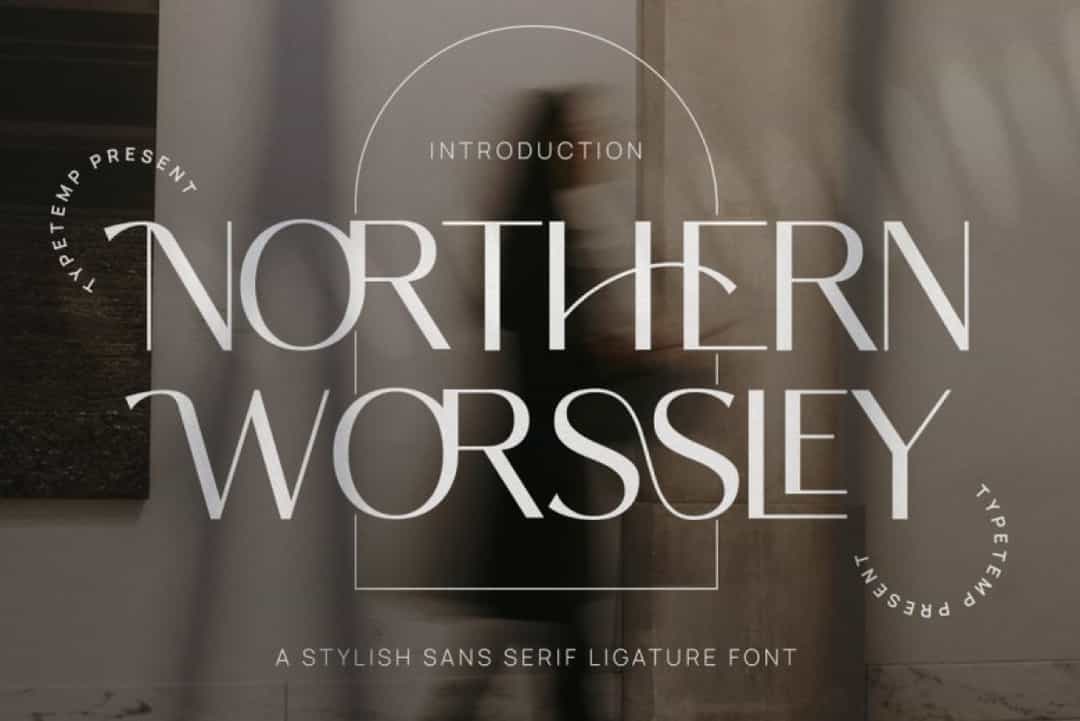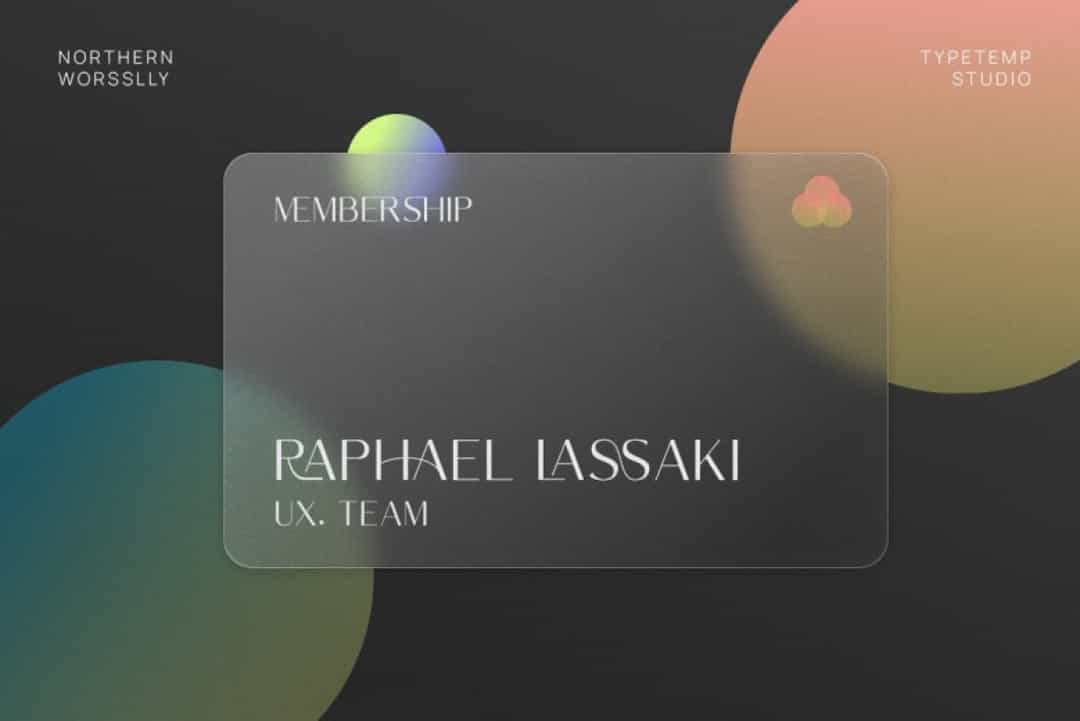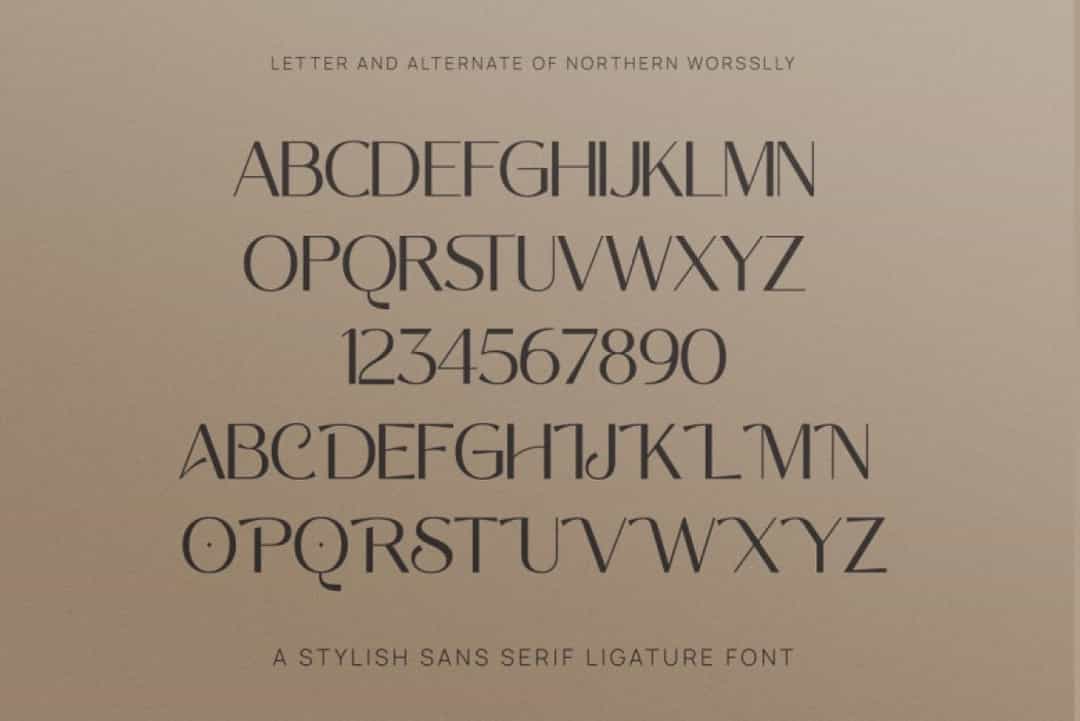
Northern Worssley Font has a trendy, elegant, contemporary and minimalistic look which will be perfect to enhance your brand and personal style. Use OpenType features to open up the font’s numerous alternates and ligatures, and then choose from the options to adjust the appearance of the font to your liking.